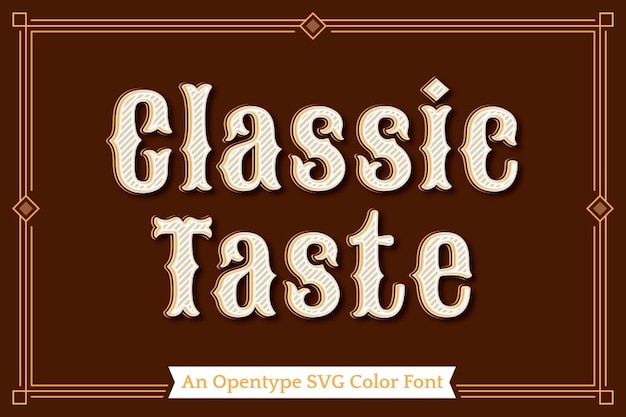
Classic Taste Font
"Classic Taste" is an elegant font that exudes the charm of classic, antique, and vintage design. Each letter is meticulously crafted to reflect timeless sophistication and historical grace. Perfect for projects seeking a touch of old-world elegance, "Classic Taste" adds a refined and nostalgic touch, making it ideal for invitations, branding, and any design that aims to capture the essence of vintage allure.